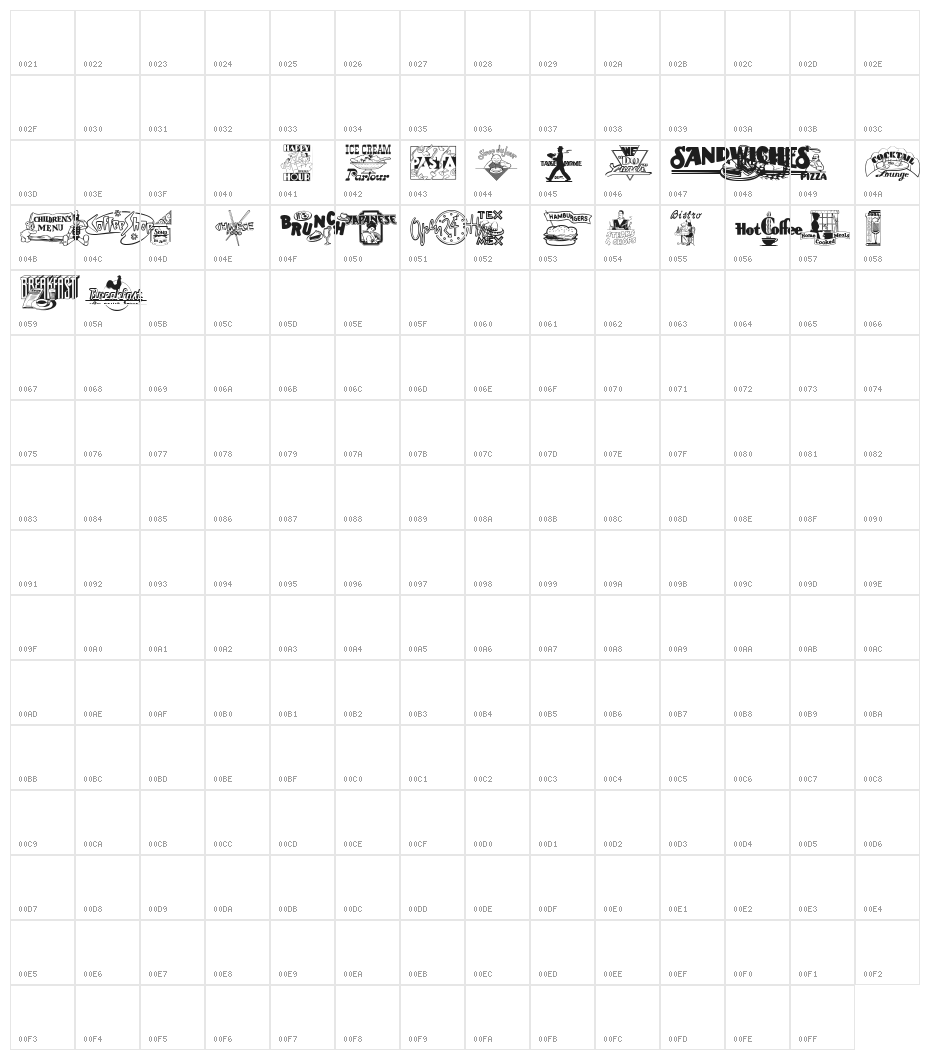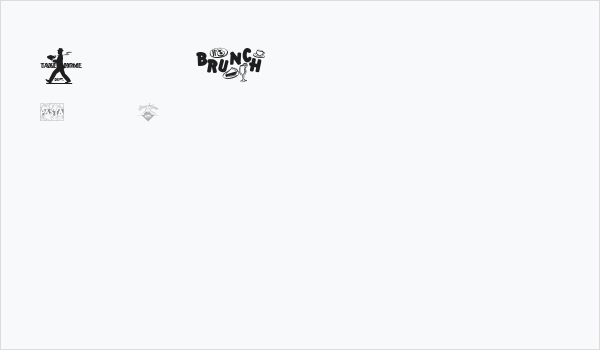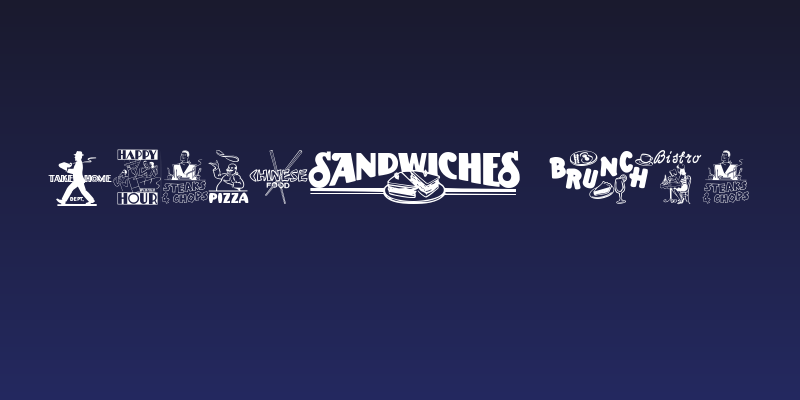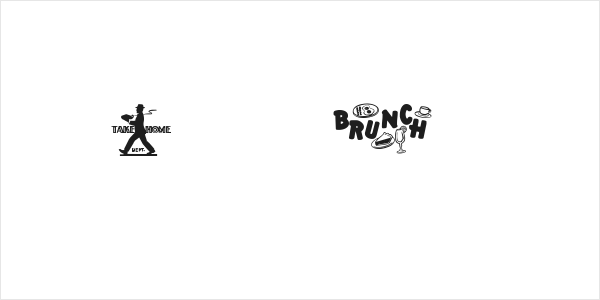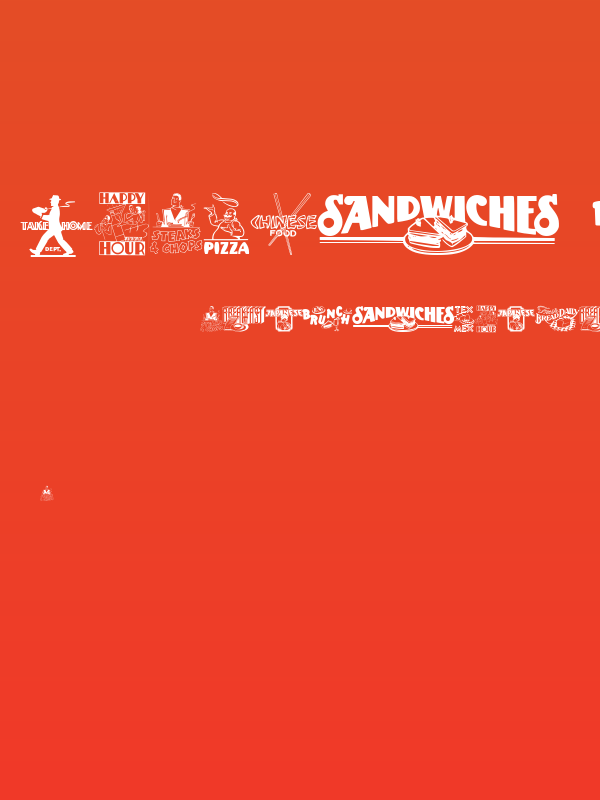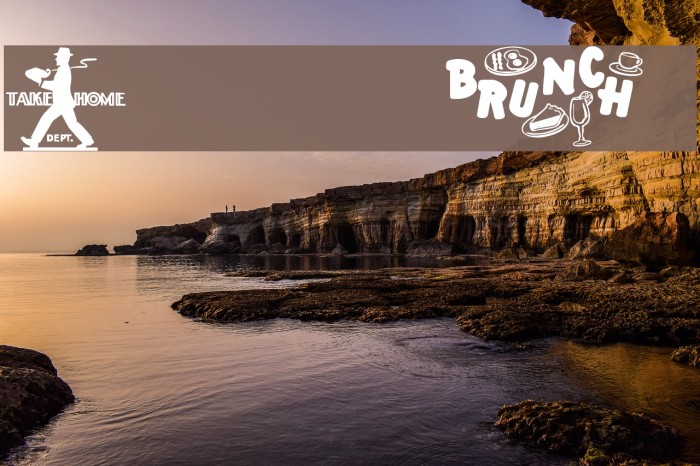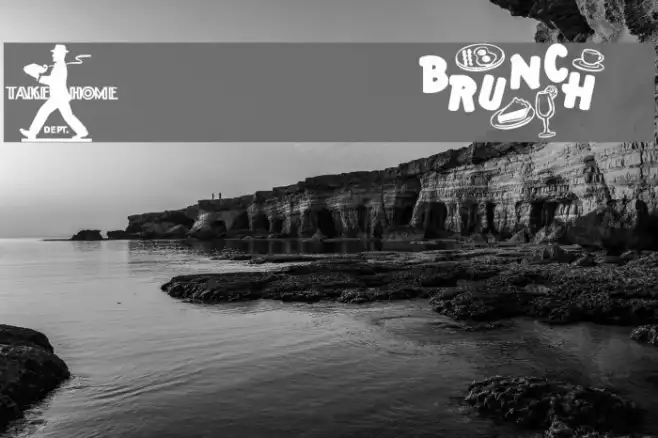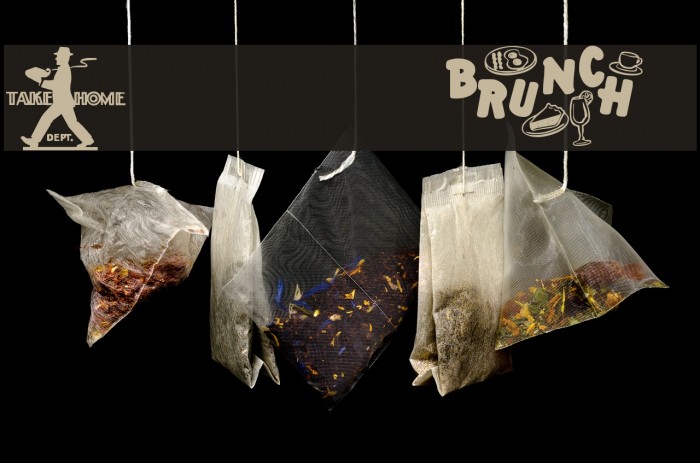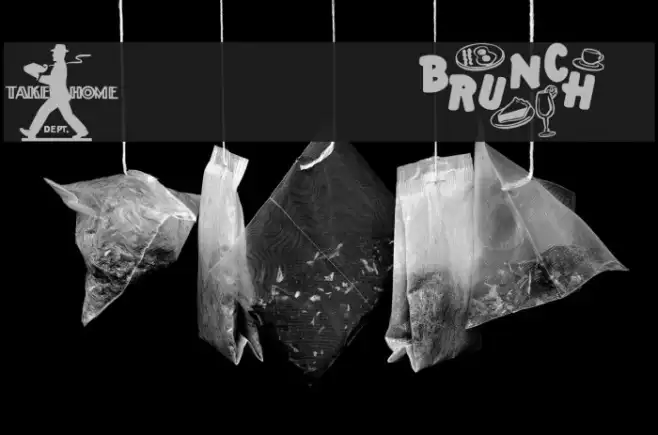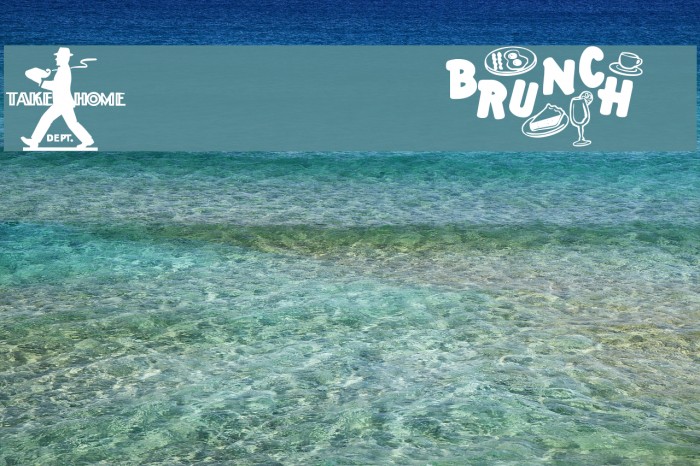
Eating Out Font
Eating Out Description
This collection of decorative and display fonts features a variety of styles, each with its own unique flair. The fonts are designed to capture attention with bold, artistic elements and intricate details. They include playful and whimsical designs, as well as more classic and vintage-inspired looks. The fonts are perfect for creating eye-catching signage, menus, and promotional materials for food-related businesses. Each font incorporates thematic elements that align with the culinary theme, such as utensils, food items, and dining-related motifs. The diversity in styles allows for a wide range of creative applications, making them suitable for both modern and retro aesthetics.
| Use Case | Logos, Headlines, Signage |
| Proposed Projects | Ideal for restaurant menus, food truck branding, cafe signage, and culinary event promotions. |